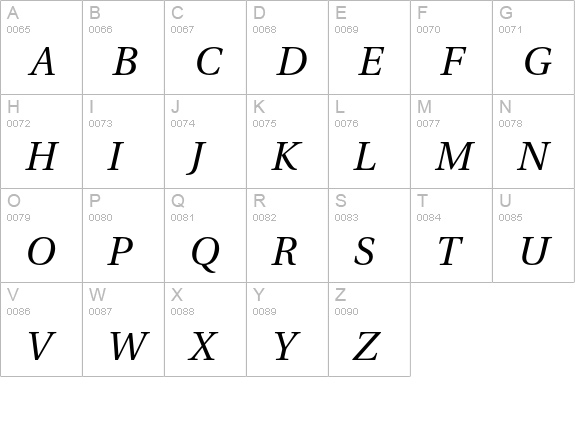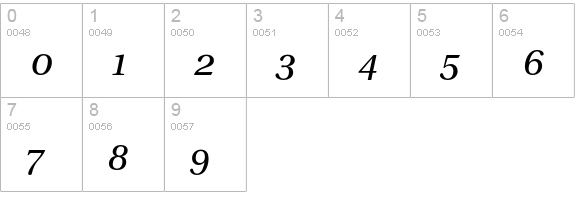
Utopia Italic with Oldstyle Figures Font Details
Utopia Italic with Oldstyle Figures is a distinctive, italic variant in the Utopia typeface family \xE2\x80\x94 well suited to design and typography projects.
Utopia Italic with Oldstyle Figures font is a stunning typeface that effortlessly combines elegance and readability. Its graceful curves and slanted posture exude a sense of sophistication, making it perfect for any design project that aims to make a lasting impression. What sets Utopia Italic with Oldstyle Figures font apart is its inclusion of oldstyle figures, which adds a touch of vintage charm to the overall aesthetic. These figures, with their varying heights and stylishly elongated proportions, lend a sense of authenticity and historical significance to any text. One of the most remarkable features of Utopia Italic with Oldstyle Figures font is that it is freely available to download at FontsMarket.com. This means that designers, creatives, and typophiles alike can easily access this exceptional typeface without any cost. It offers the freedom to explore and experiment with different creative projects, without any limitations or restrictions. Whether used in print or digital mediums, Utopia Italic with Oldstyle Figures font stands out due to its versatility and timeless appeal. It is equally suited for elegant editorial layouts, striking headlines, or even adding a touch of class to branding materials. Its legible letterforms and subtle details ensure that every word is effortlessly conveyed to the reader, enhancing the overall impact of the design. In conclusion, Utopia Italic with Oldstyle Figures font is a truly remarkable typeface that combines elegance, readability, and a touch of vintage charm. Its availability as a free download on FontsMarket.com makes it even more accessible and valuable to designers, allowing them to create stunning designs without any barriers. So go ahead and unleash your creativity with the timeless beauty of Utopia Italic with Oldstyle Figures font.